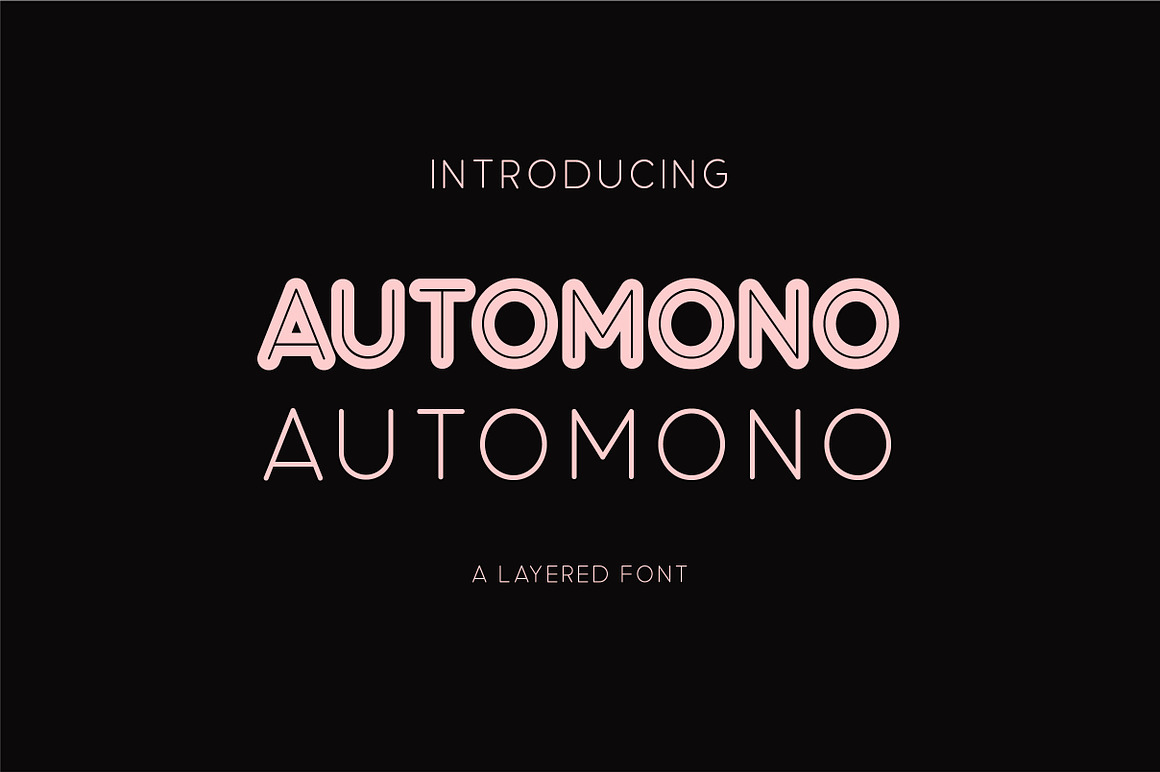
Automono Fonts
Automono Fonts is perfect for automotive branding, racing team logos, car dealership marketing, motorsports campaigns, automotive technology displays, vehicle dashboard interfaces, garage signage, auto parts packaging, speed-focused advertising, and contemporary automotive design projects.
What makes Automono Fonts exciting is its automotive precision that embodies the mechanical excellence of automotive engineering and racing performance through systematically crafted letterforms. This technical typeface combines monospace reliability with automotive sophistication, creating a personality that communicates speed, precision, and genuine automotive expertise. The font's automotive character and mechanical appeal make it perfect for car brands, racing organizations, and automotive-focused companies seeking to convey technical excellence and high-performance engineering.
The Automono Fonts family includes Regular, Bold, Light, Medium, Racing, Technical, Condensed, and Performance variants. Each weight maintains the font's automotive character while providing comprehensive typographic flexibility for automotive brand identity systems and mechanical design applications across diverse automotive platforms.
Whether you're developing automotive brand identities, creating racing marketing materials, designing vehicle interface systems, or building motorsports campaigns, Automono Fonts delivers unmatched automotive appeal and mechanical sophistication. Its technical presence makes it perfect for car manufacturers, racing teams, automotive technology companies, and performance brands seeking authentic automotive representation.
The font collection's precise proportions and automotive details ensure optimal performance across technical displays while maintaining excellent readability in high-speed environments. Each letterform has been carefully engineered to convey mechanical reliability and automotive precision that resonates with car enthusiasts and professional drivers seeking performance excellence.
This versatile typeface collection excels in automotive environments, offering designers the technical precision needed for comprehensive automotive brand communication strategies. The extensive character set includes racing alternates, mechanical ligatures, and automotive symbols for motorsports market positioning and automotive brand storytelling.
Embrace the power of mechanical design that celebrates automotive excellence and authentic high-performance engineering innovation.